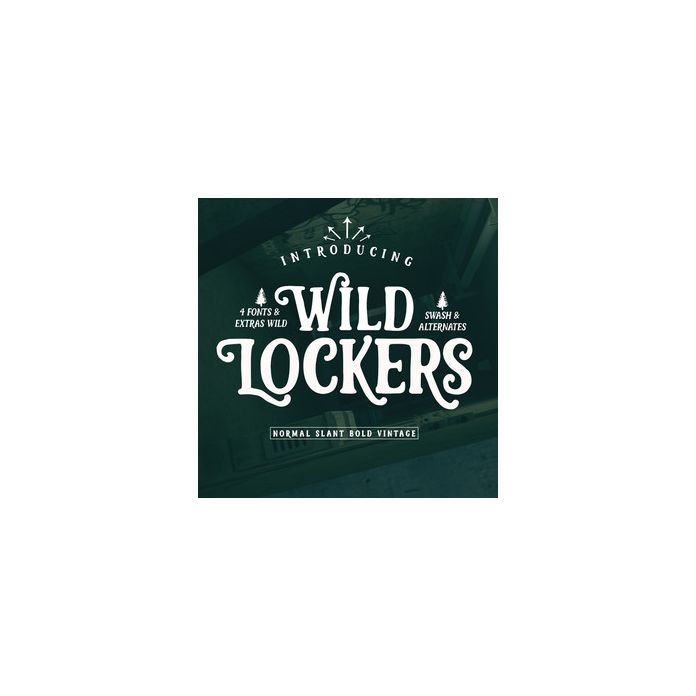
For your A letter Lockers Movement has its own character raised from selecting a font, from the typeface will make the impression of masculine look, retro, vintage, modern or otherwise.